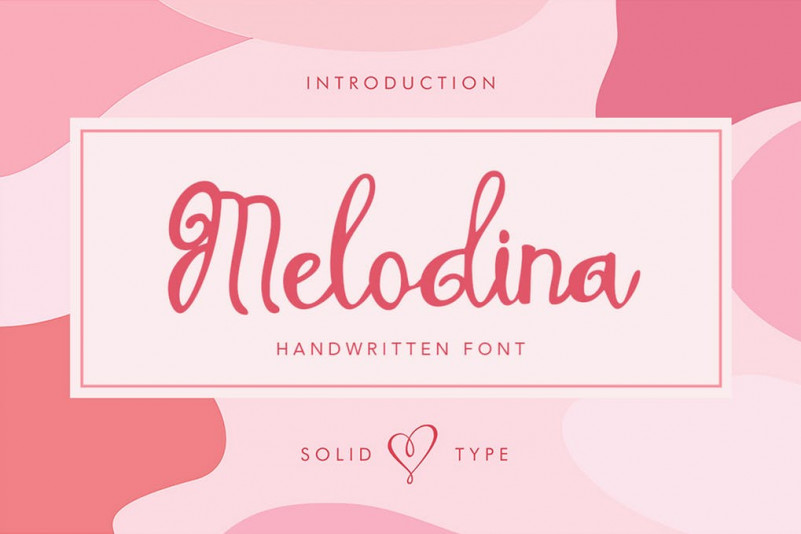
Melodina Font
Melodina Script is a modern handwritten font with unique character, pretty and girly. Those all will make you work easily to create : Wedding invitation, Posters, Logos, Print, Quotes, Headers etc
Melodina Script features Open type feature, including initial and terminal letters,ligatures and International support for most Western Languages is included.